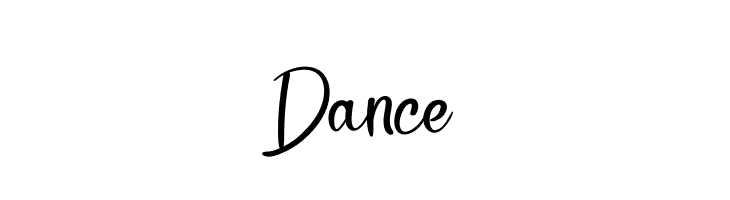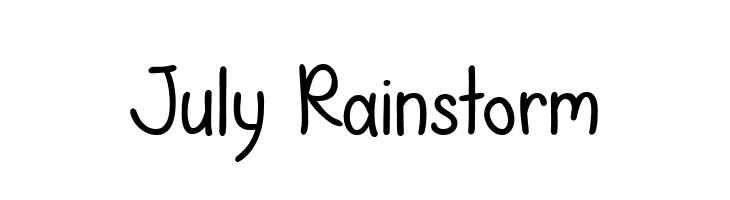
A lively, cursive script font with elegant loops and a handwritten feel.
A classic blackletter font with intricate, ornate letterforms and sharp, angular lines.
A playful, handwritten font with smooth, rounded strokes.
A modern serif font with a light weight, offering elegance and readability.
A classic, cursive font with elegant, calligraphic influences and dynamic stroke contrast.
An elegant script font with flowing, interconnected characters and high contrast strokes.
A modern, expanded italic font with a sleek and dynamic style.
A whimsical and playful font with bold, swirling characters.